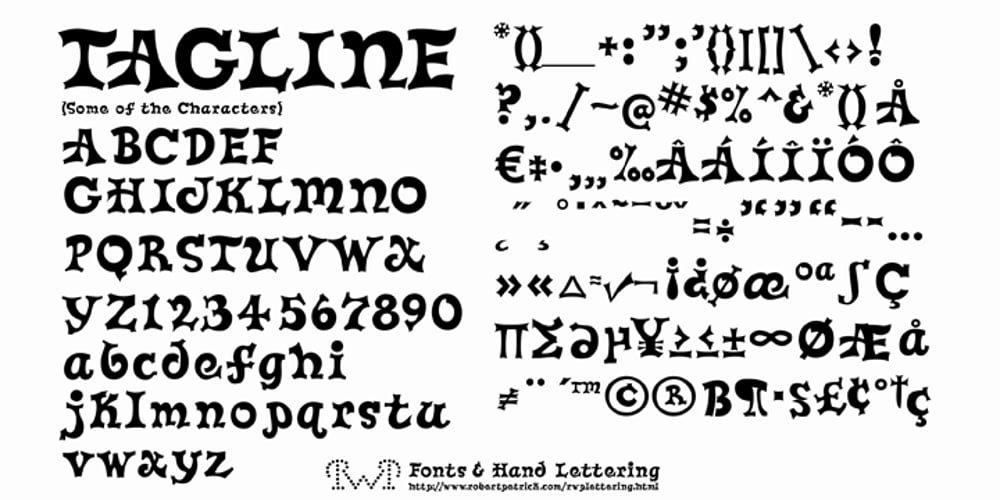
Tagline
Tagline font
Tagline Font Family was designed by Robert Petrick and published by Robert Petrick. Tagline contains 1 styles and family package options. “Tagline” is a Fun, Bold casual font that was born from the New York graffiti style. Good for all your entertainment projects. Though “Tagline” is radical in style it’s still very readable and calls attention to your message.